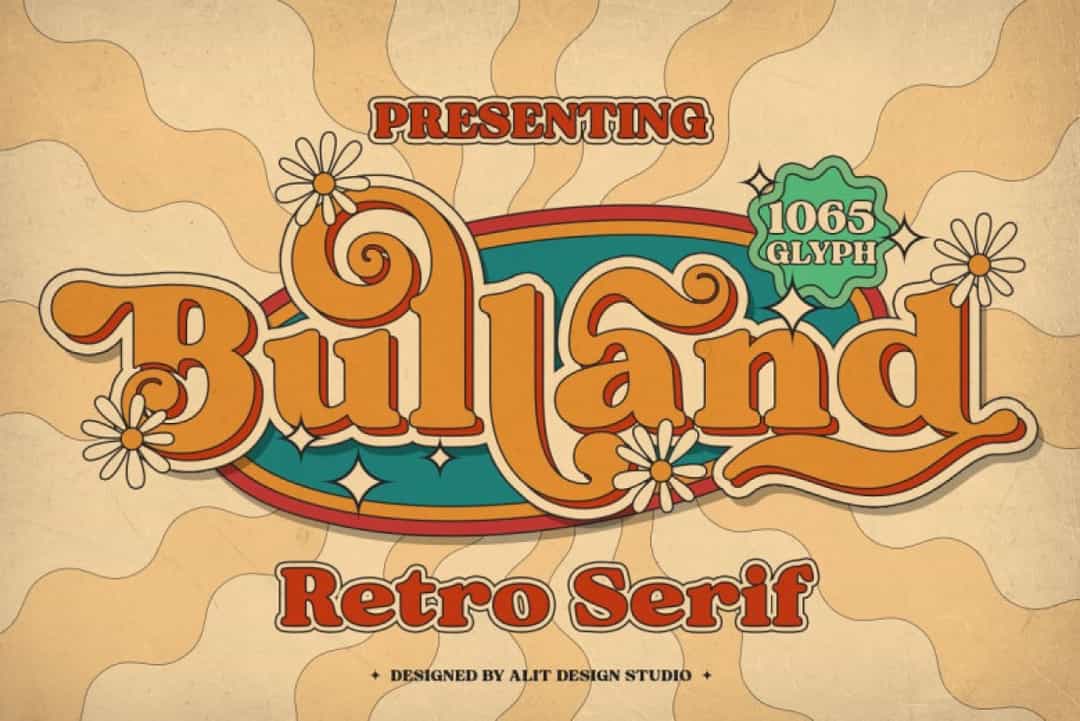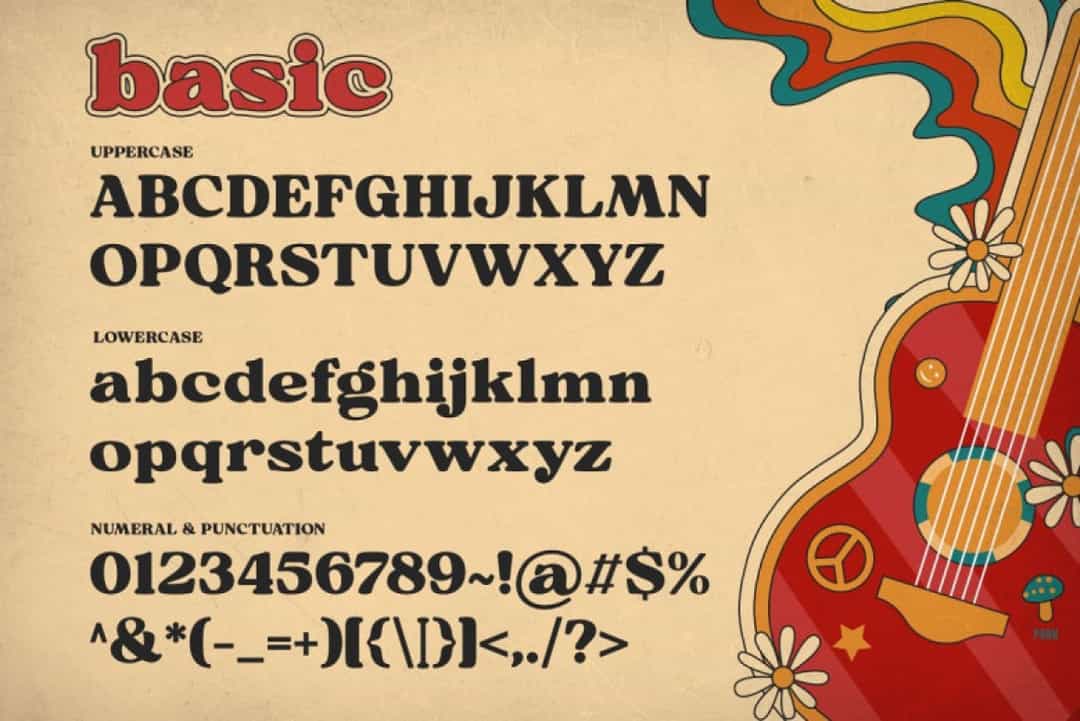
The Bulland font draws its inspiration from fashions of the 80s and 90s. At that time, it became trendy to use “The Bulland Typeface”, giving a sturdy yet modern feel. Furthermore, this font features an abundance of characters and swashes making creating striking retro designs easy.